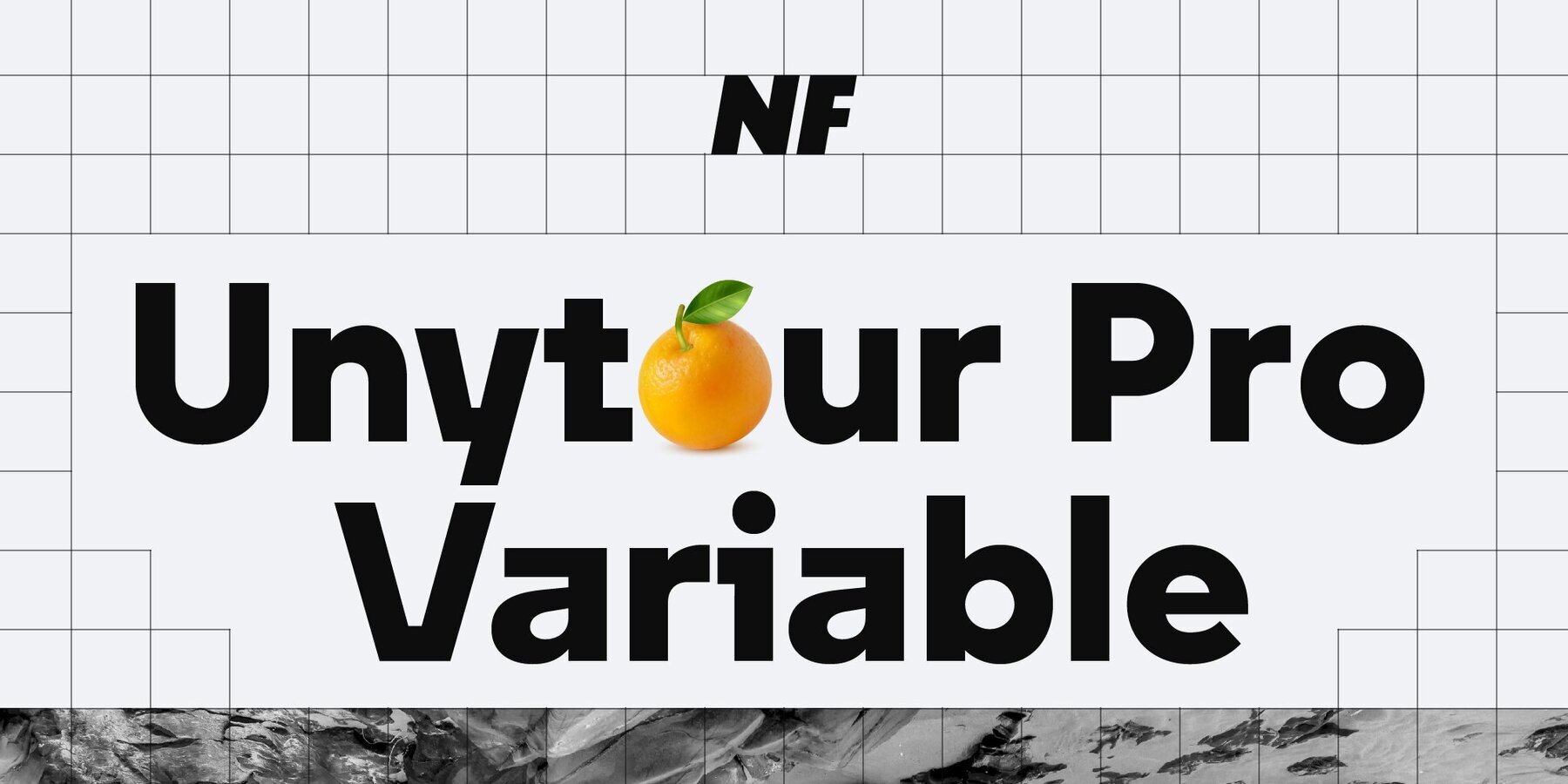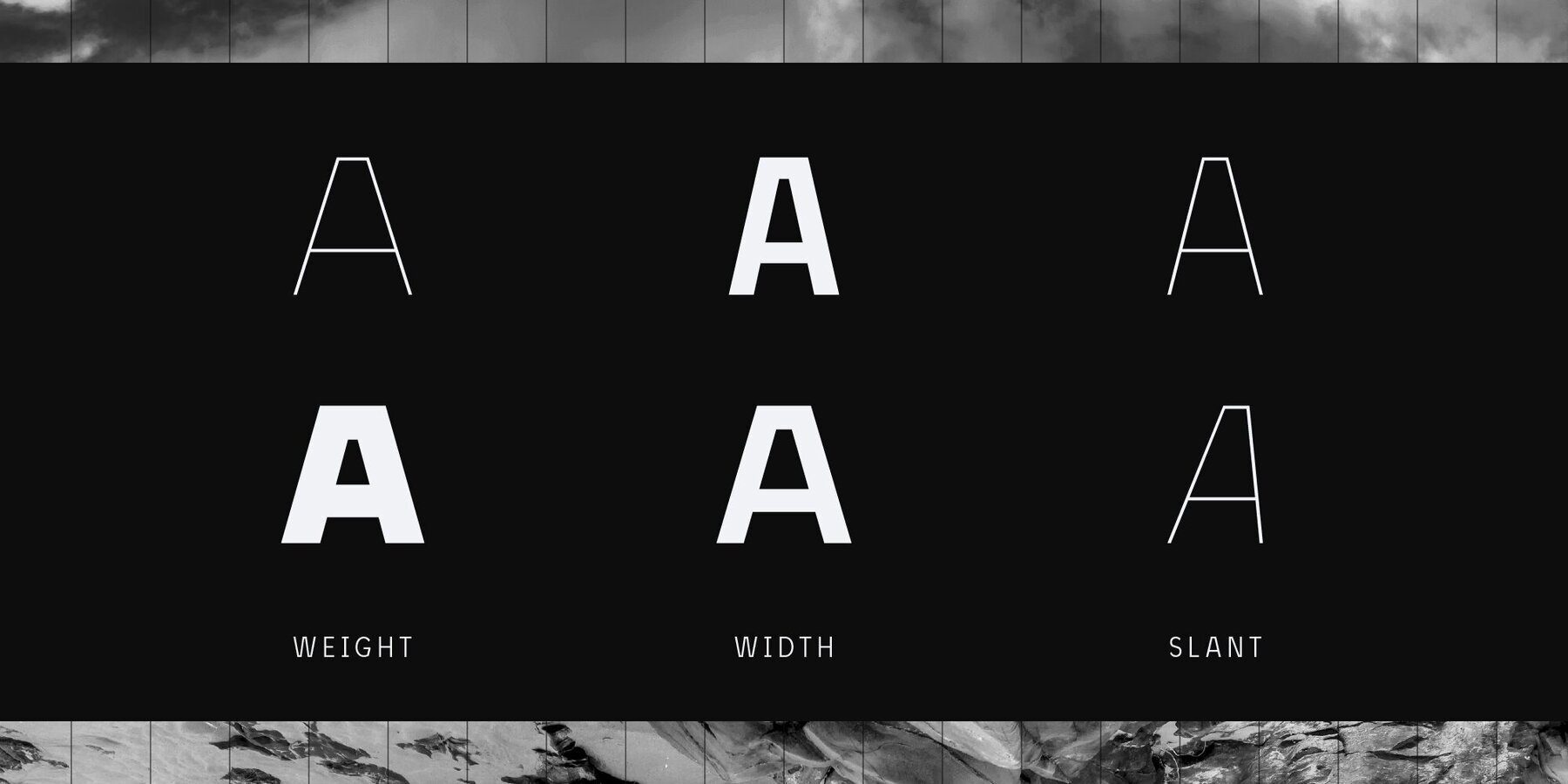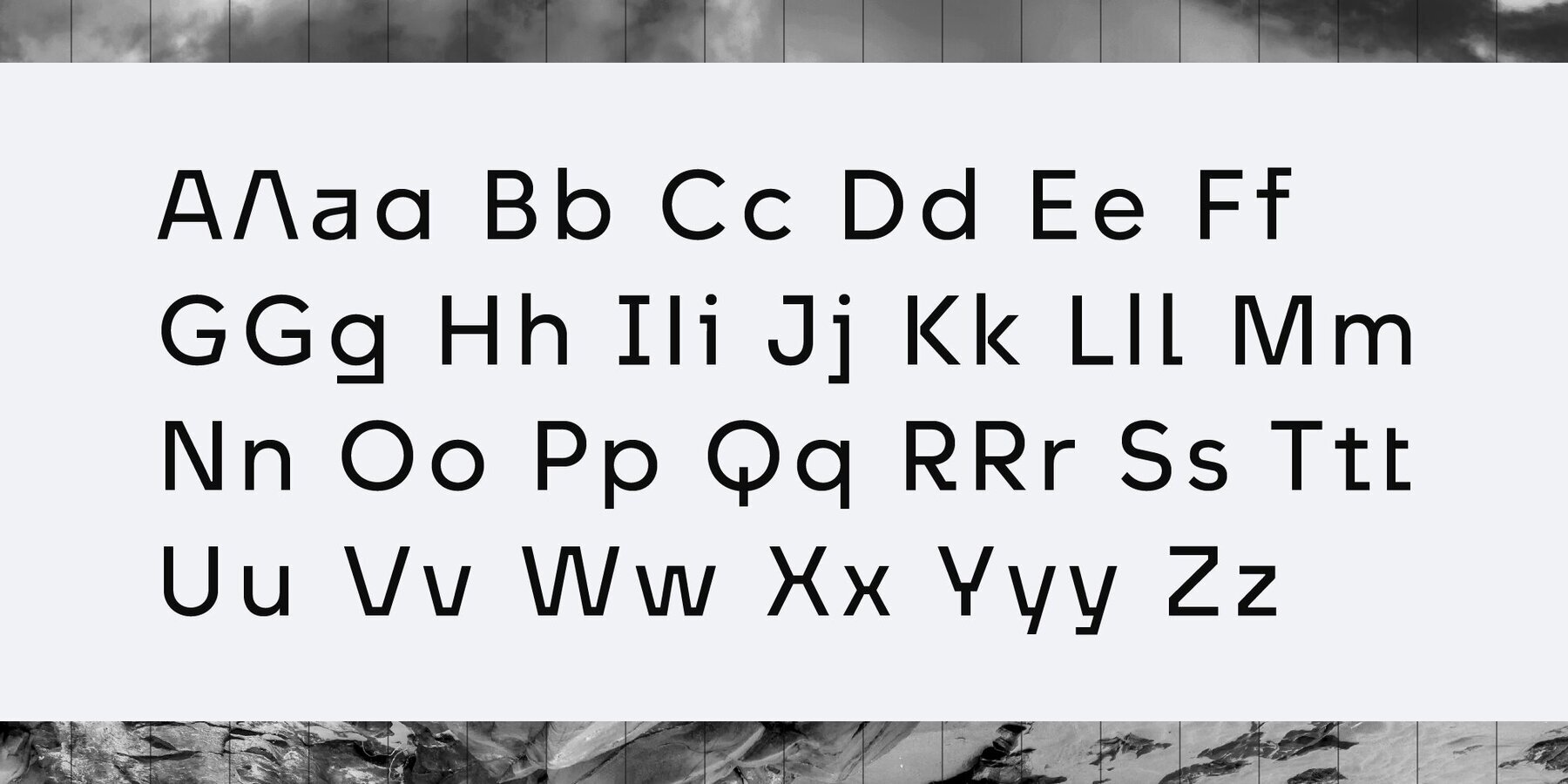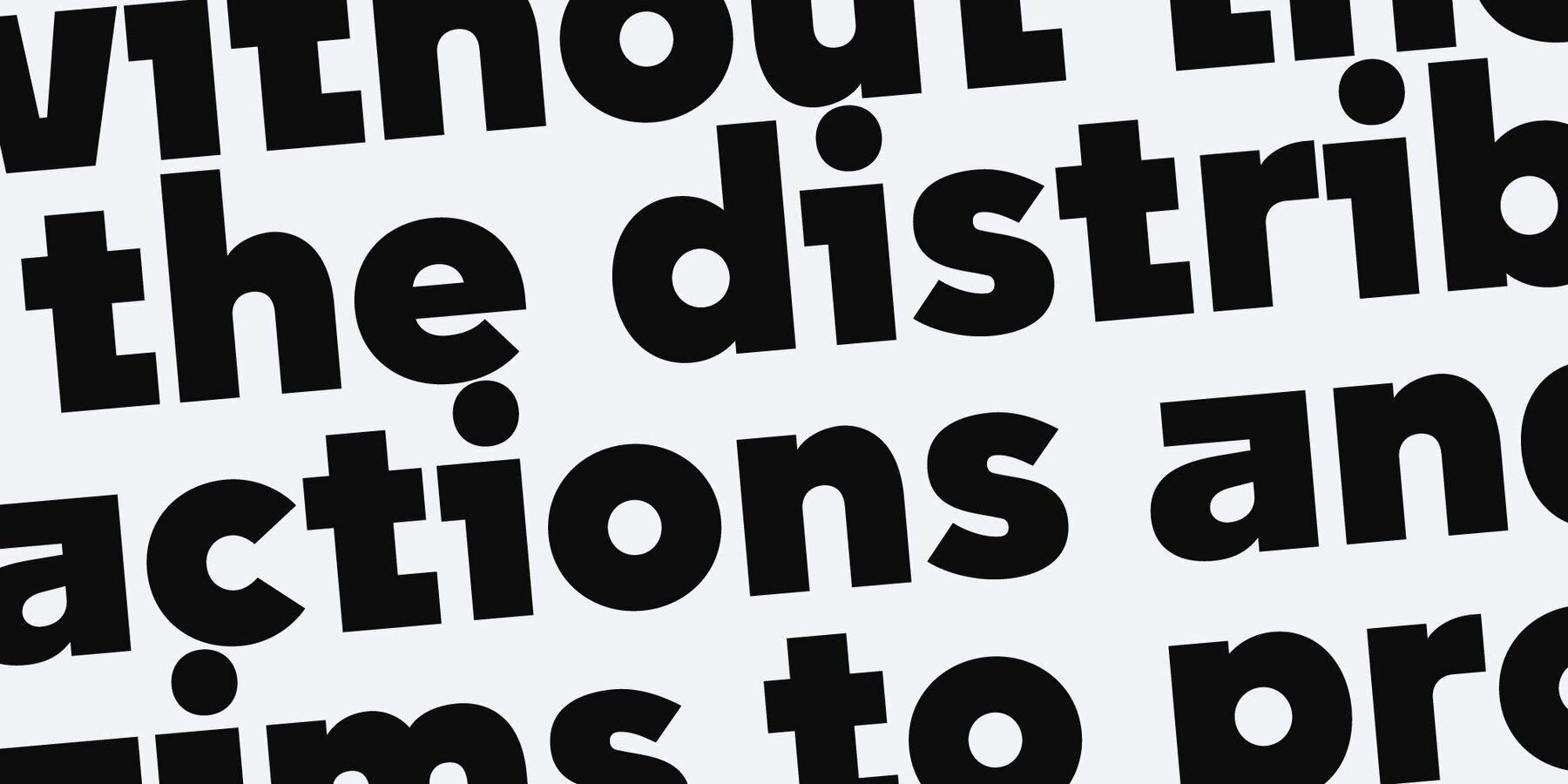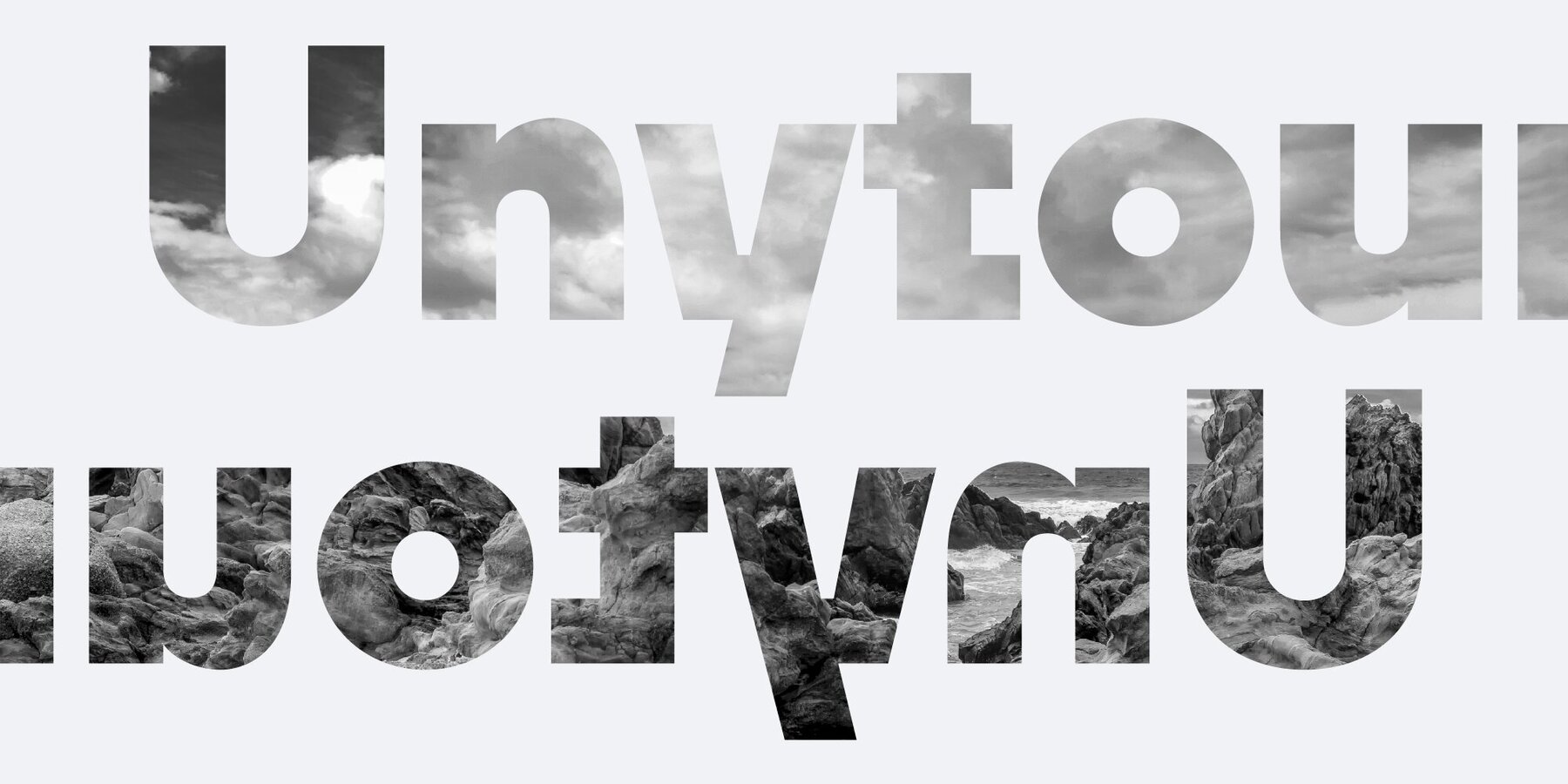
Unytour Pro Variable Font
Unytour Pro Variable is a versatile font choice within the Unytour Pro family, introducing dynamic capabilities that cater to a range of design needs. Featuring three distinct subfamilies—Condensed, Narrow, and Normal—this variable font allows designers to fine-tune weight, width, and slant to achieve precise typographic expression. Its adaptability makes it an excellent option for creating visual harmony across various projects.
The font offers alternate glyphs for characters like A, G, I, R, a, l, t, and y, allowing for creative customization and differentiation in your typography. Enhanced with a comprehensive set of OpenType features, Unytour Pro Variable expands your design possibilities, making it a valuable asset for any designer's toolkit. Moreover, the font stands out with its excellent legibility, making it suitable for both print and digital media, including TV screen reproduction.
Savchuk Mykola began his career as a graphic designer. Over time, he had a desire to create a font that would reflect his view of typography. ‘They say that all ingenious things are simple, although unique. In my future projects, I want to reflect simplicity on the one hand and uniqueness on the other, providi...